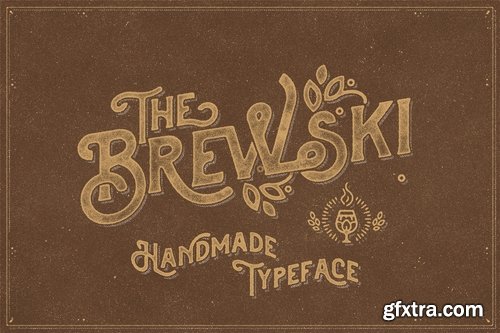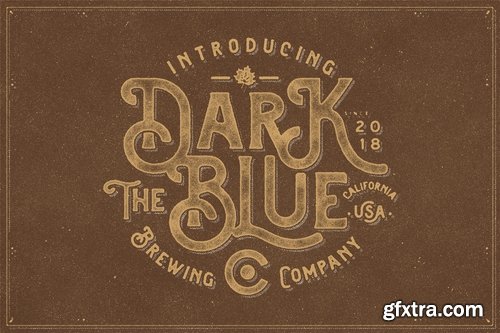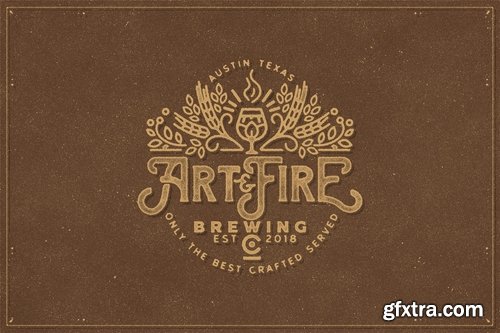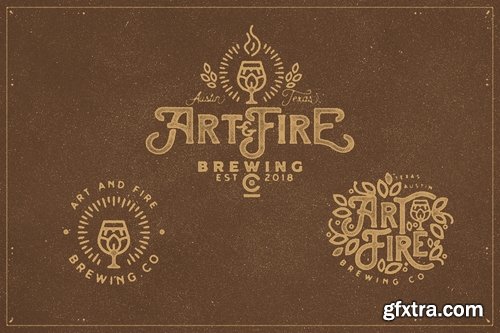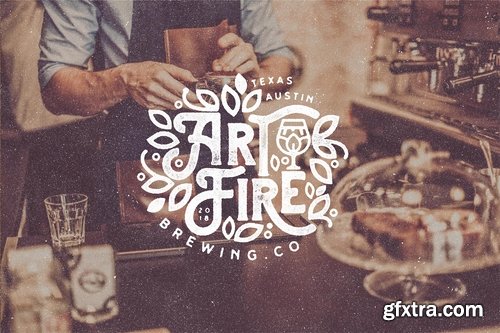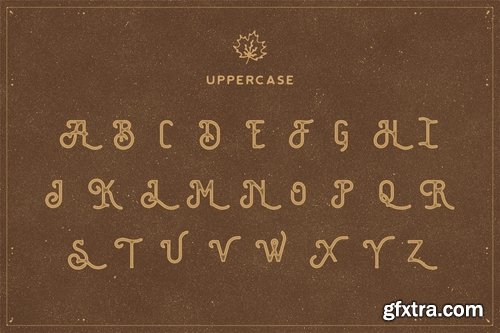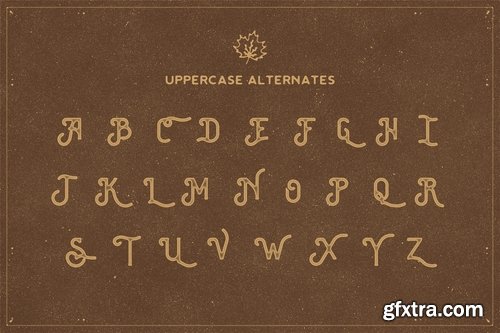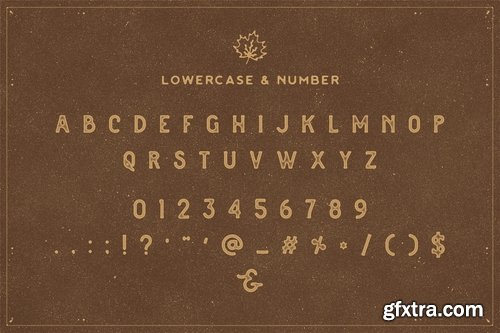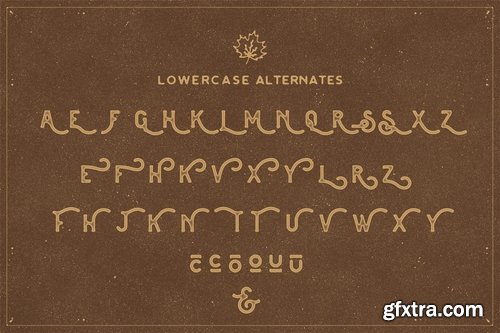
CM - The Brewski - Textured Typeface 2872793
Brewski is aTextured typeface, with touch of many beautiful alternates character and ornament makes this font look stylist. Inspired by vintage Brewery packaging and Beer advertising from the early 20th century. It is perfect for vintage logo design, headlines or packaging design. Brewski designed with Stylistic Alternates and Contextual Alternate in some characters that allows you to mix and match pairs of letters to fit your design. This font good for vintage design, t-shirt, logo, labels, posters and etc.